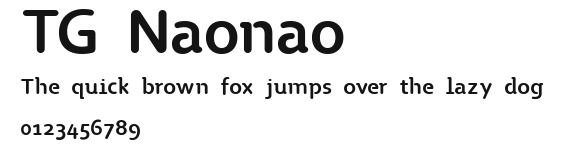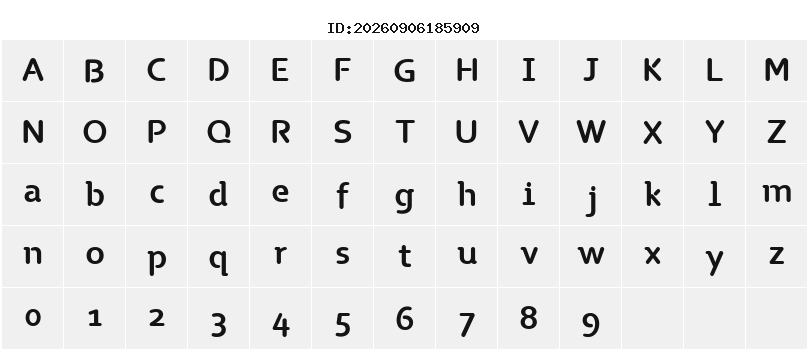
• Font Name: TG Naonao
• Designer: Timothy Gao
About TG Naonao.ttf
TG Naonao.ttf is a modern, elegant sans-serif font designed for ultimate readability and visual harmony. Perfect for branding, headlines, web design, and print materials.